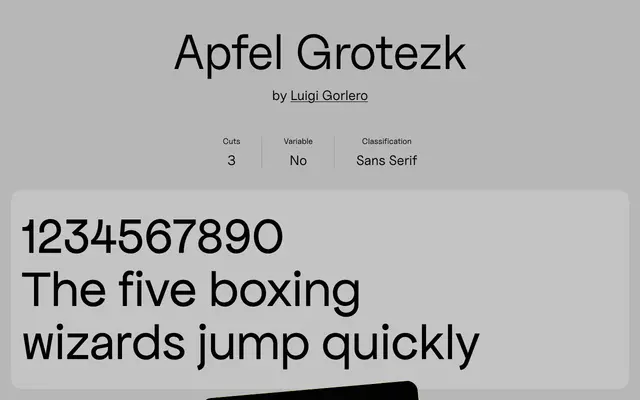
Apfel Grotezk
A three-cut grotesque sans by Luigi Gorlero, released under the SIL Open Font Licence for free commercial and personal use.
Designed by Luigi Gorlero, Apfel Grotezk is a grotesque sans available in three cuts with no variable axis. It is distributed under the SIL Open Font Licence 1.1, permitting commercial use, modification and redistribution with certain conditions. The name nods to the Continental grotesque tradition while keeping the offering minimal and accessible.
Classified as Sans Serif by the foundry; the name 'Grotezk' signals a grotesque subcategory, consistent with the broad Continental grotesque tradition.